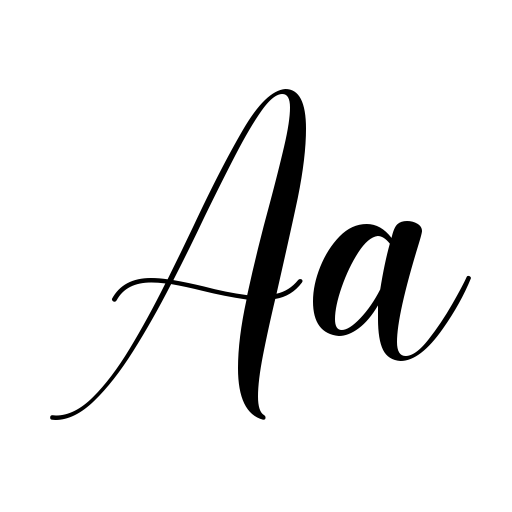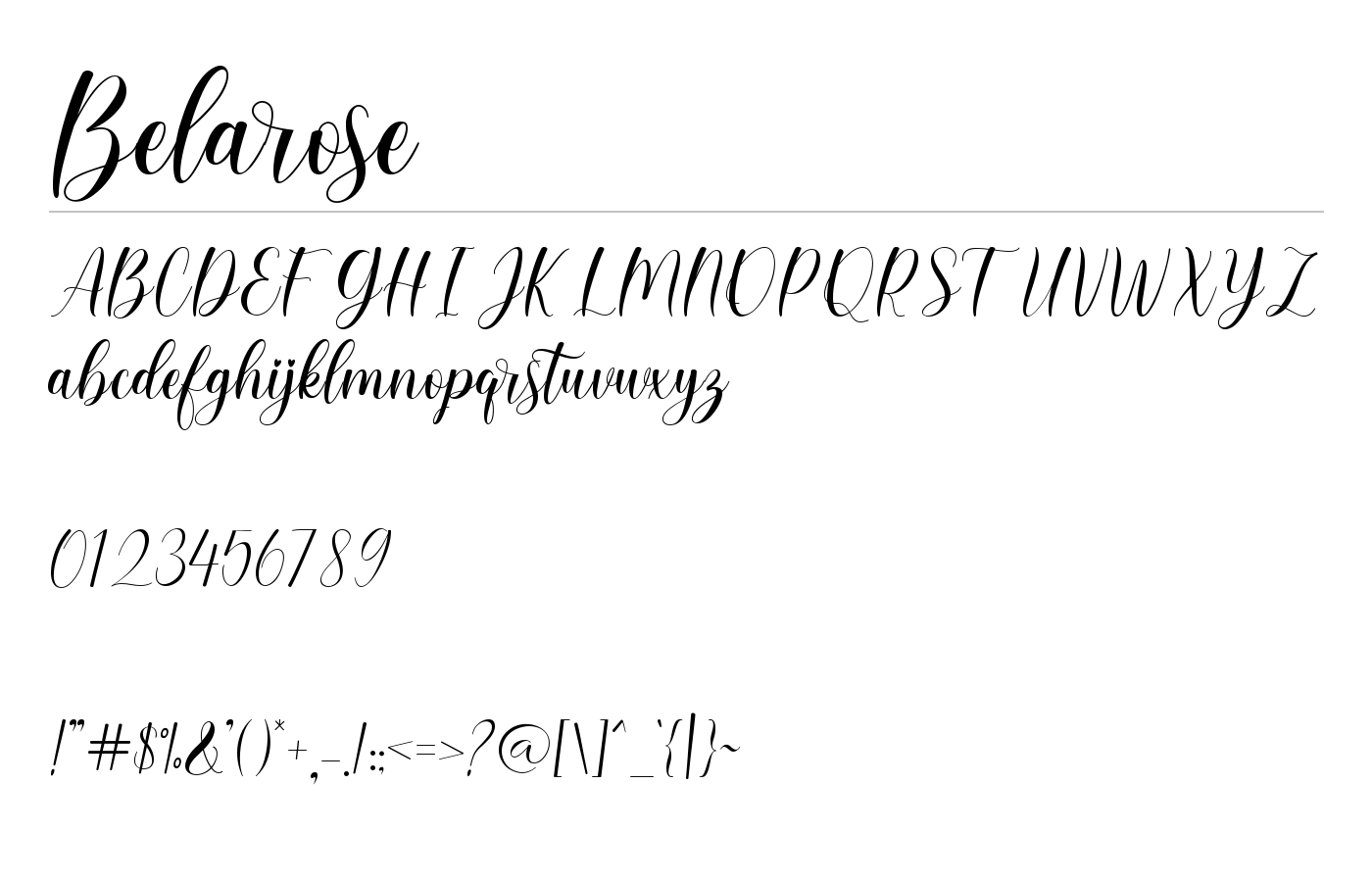
Belarose is an elegant script font featuring a graceful flow with a combination of thick and thin strokes that give it a sophisticated and stylish appearance. Its slender, tall letterforms with delicate curves and flourishes create a refined yet playful feel, making it perfect for luxury branding, wedding invitations, and feminine editorial designs. The font’s mix of airy uppercase and smooth lowercase characters ensures it stands out beautifully in headlines and decorative text.
Belarose Font
About Belarose Font
| Font family | Belarose Font |
| Designer | (MJB Letters). 2020. (Muhammad Mujibulloh) |